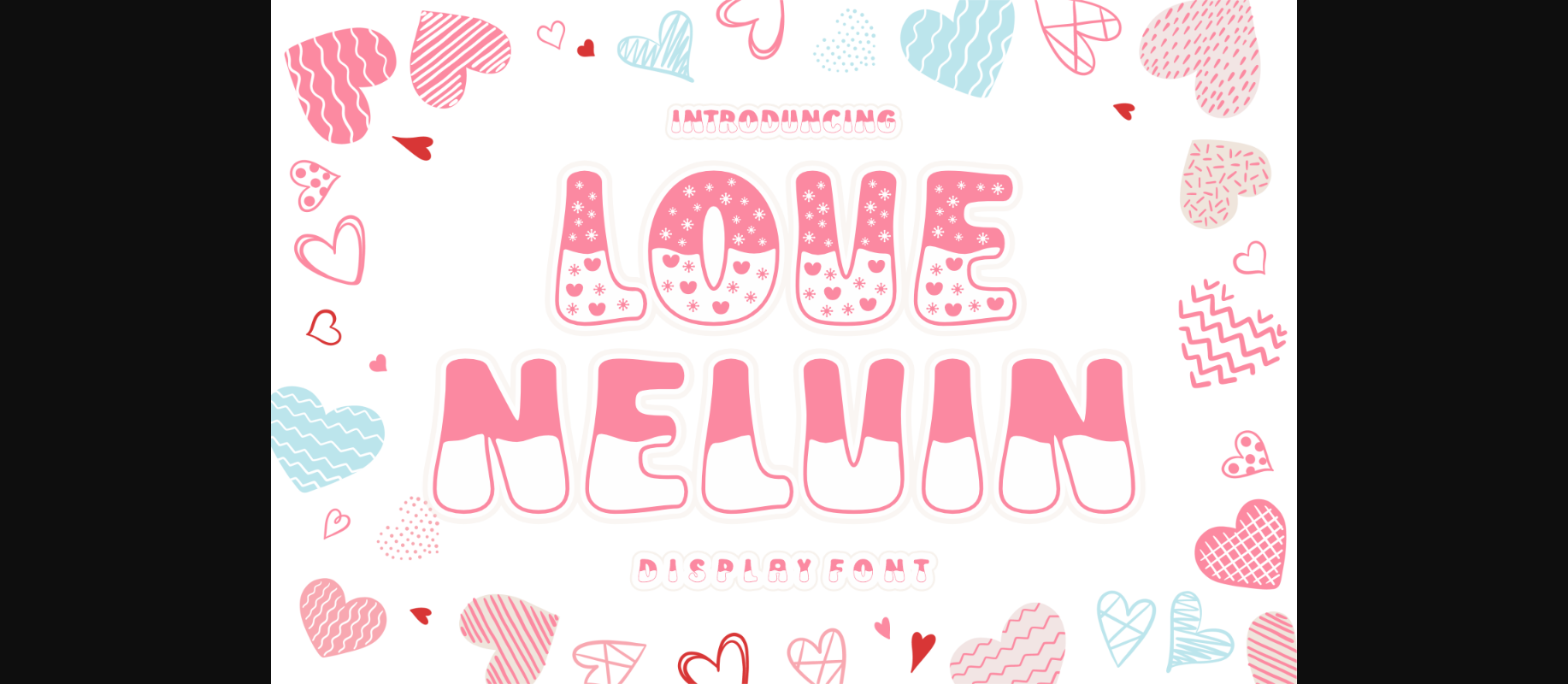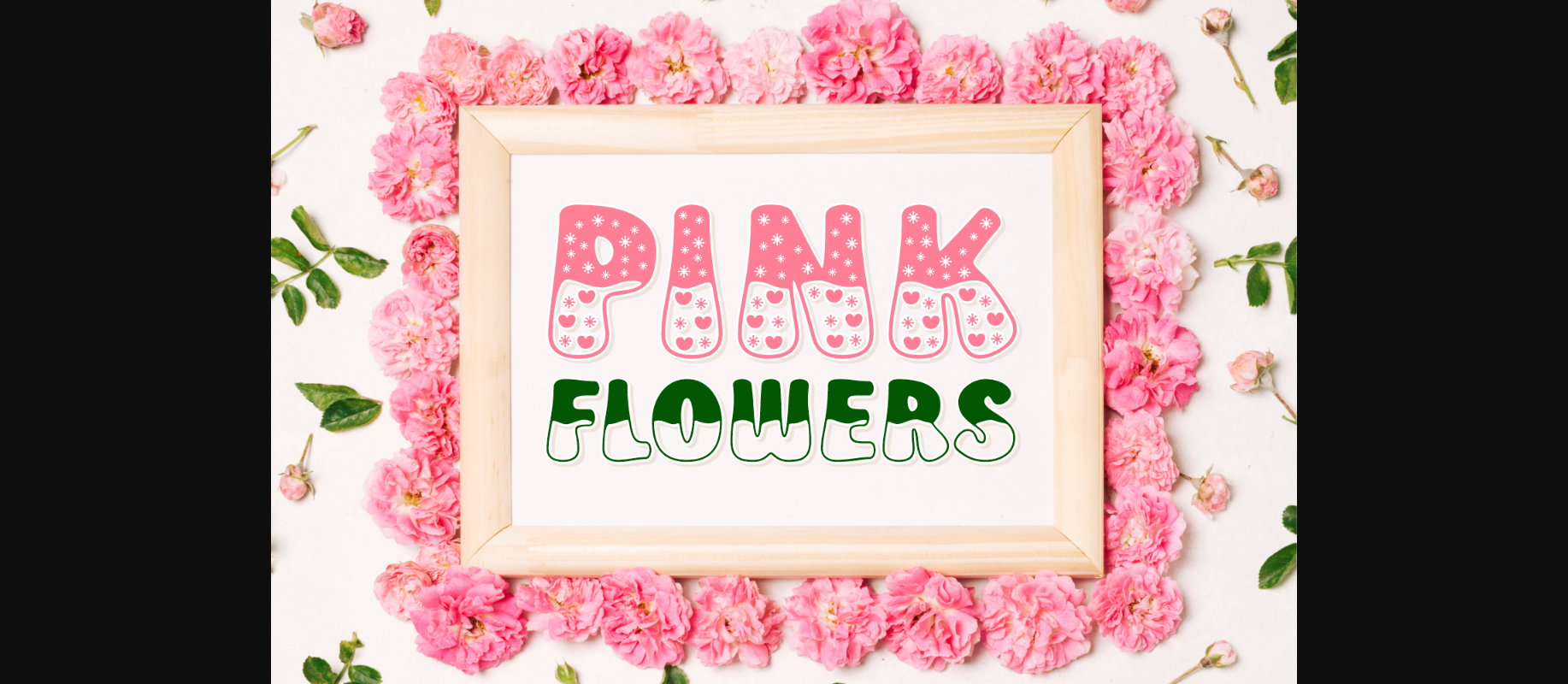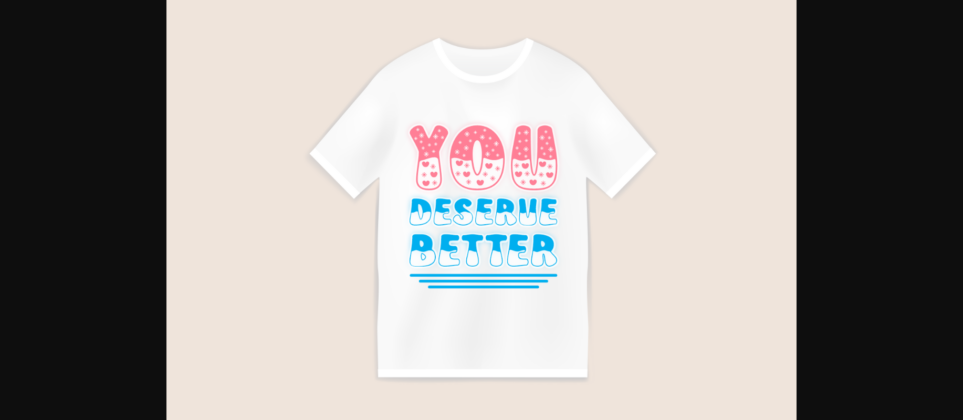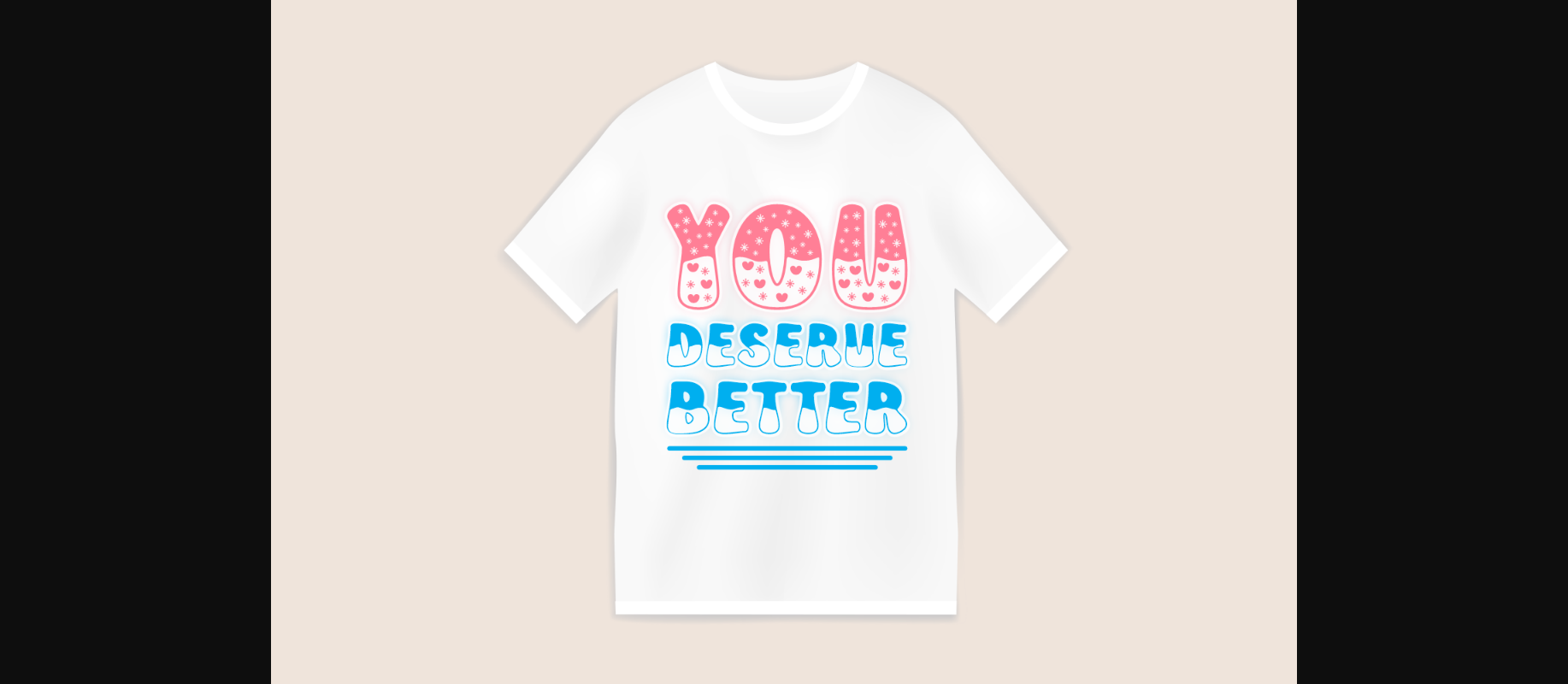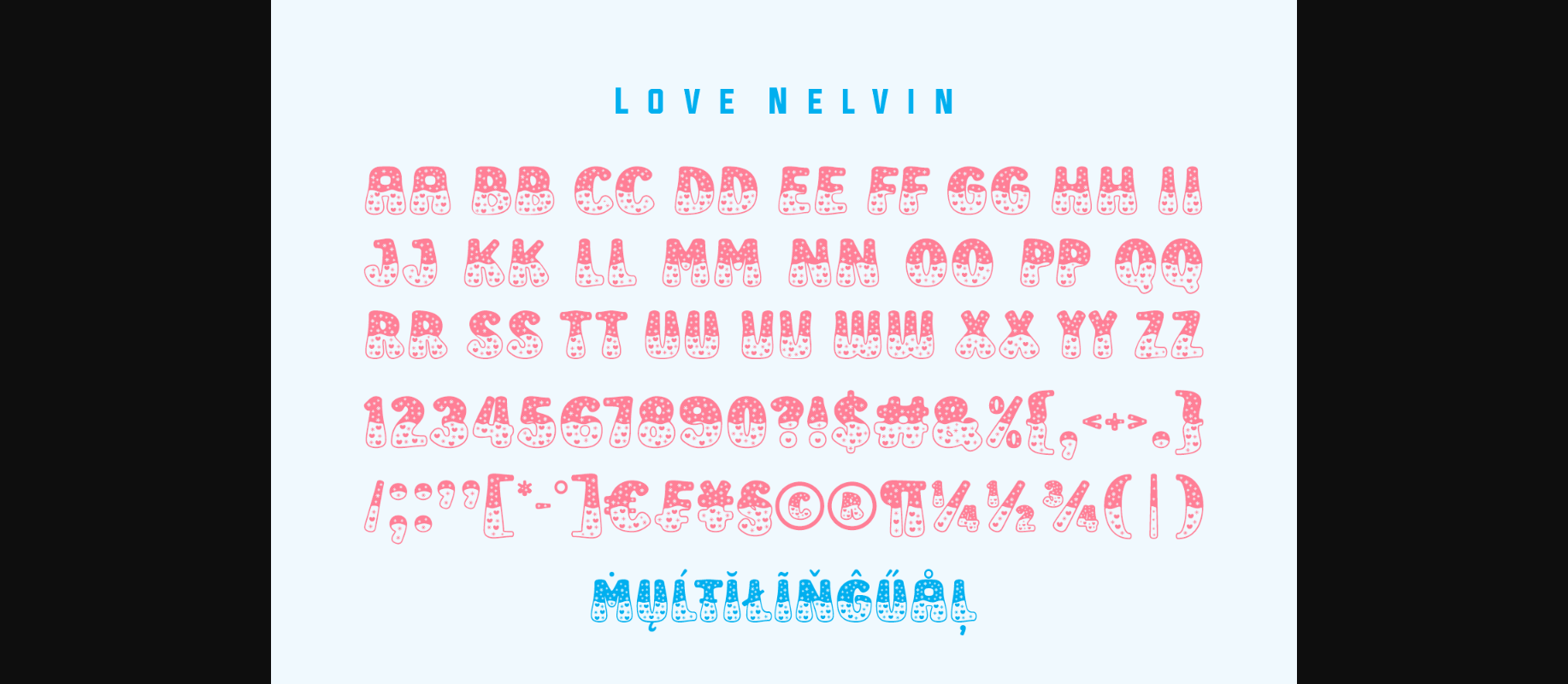
About Love Nelvin Font
Love Nelvin is a playful and modern decorative font that has a unique, bubbly feel. It features bold, smooth curves and an inviting, rounded aesthetic. Perfect for logos, titles, and other creative projects, this font will give your designs a fun and modern flair.